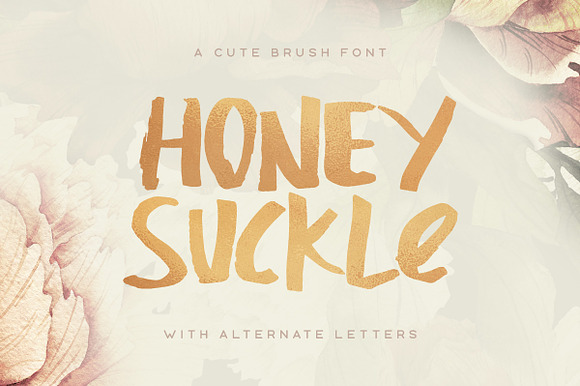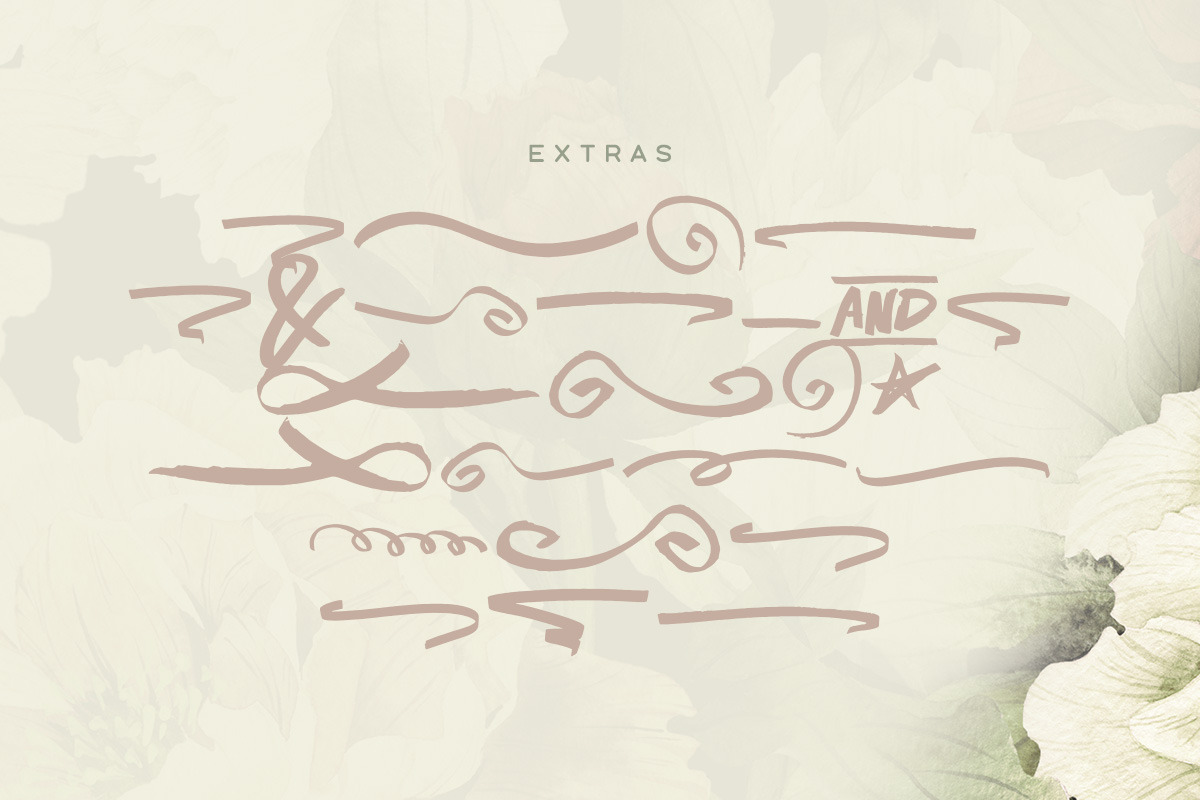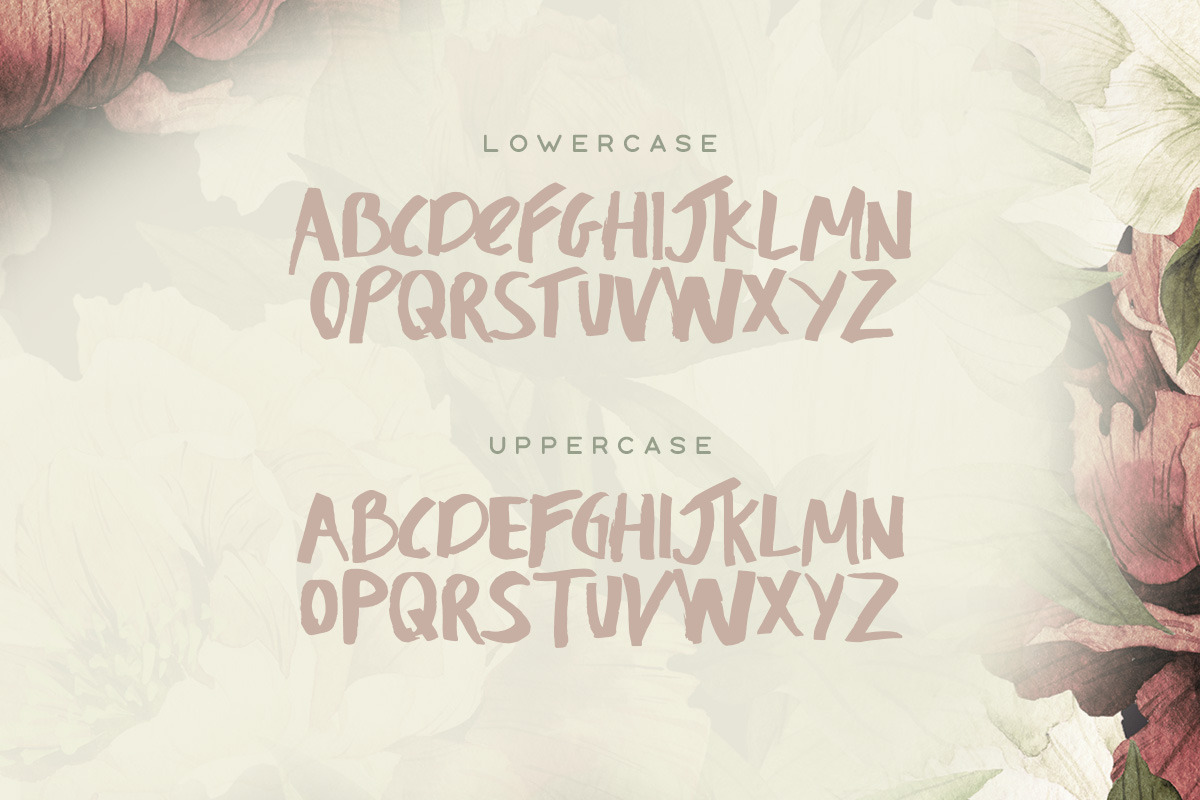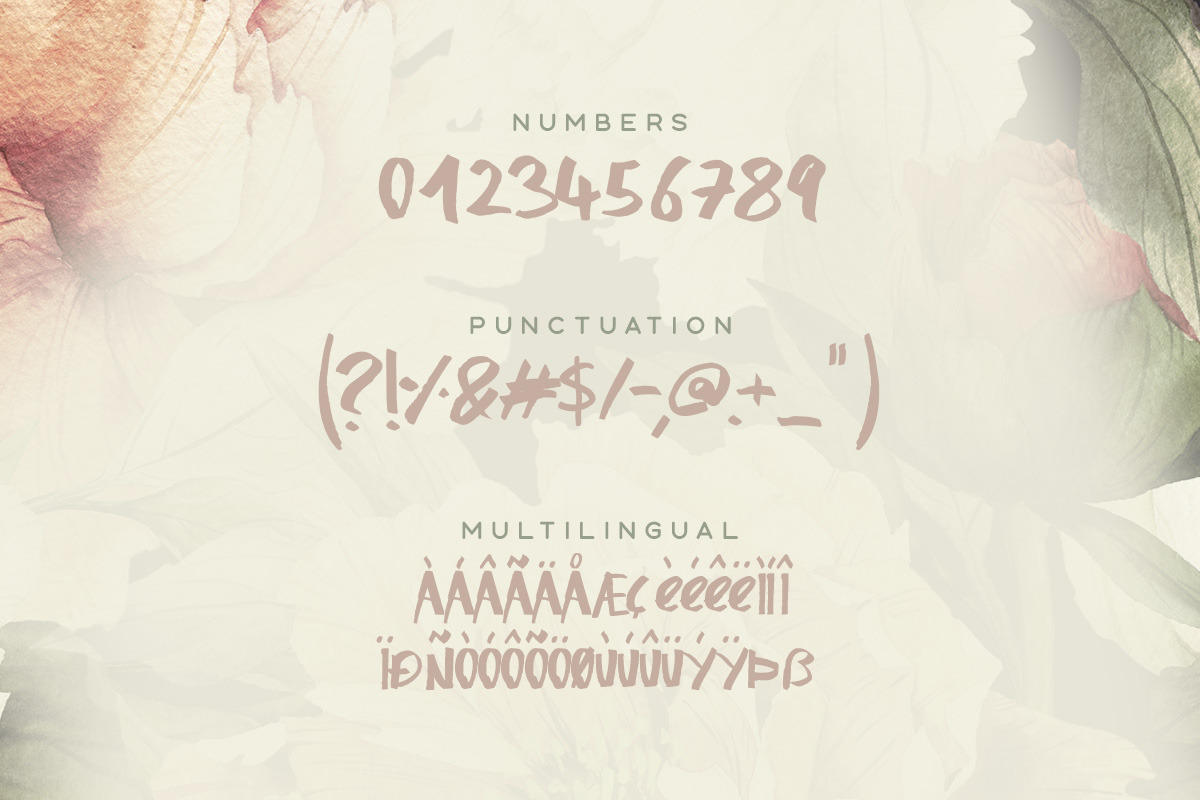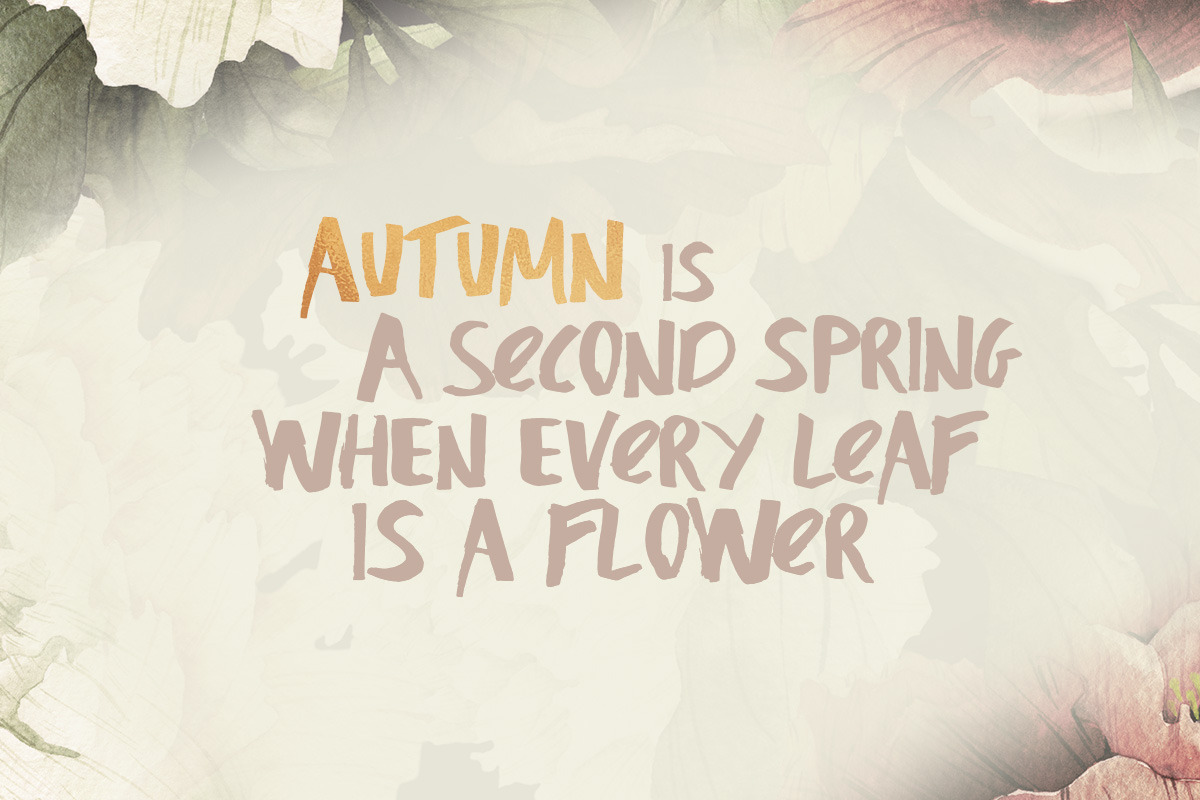
Honeysuckle Typeface
Honeysuckle is a cheerful brush font with alternate letters, multilingual support, extra swashes & decorative elements and it also includes the gold texture in the preview image!
Honeysuckle Typeface by Tugcu Design Co. fits naturally into Branding, posters, packaging, typography.